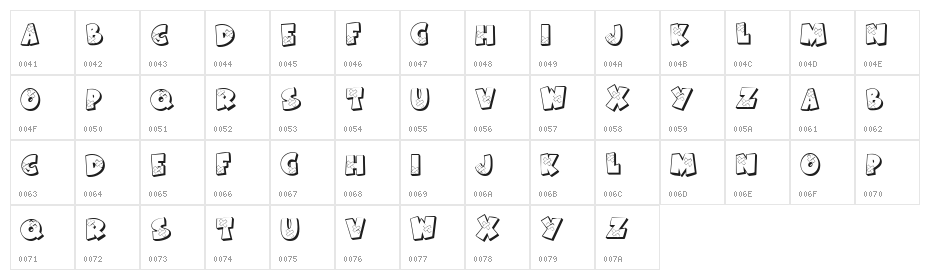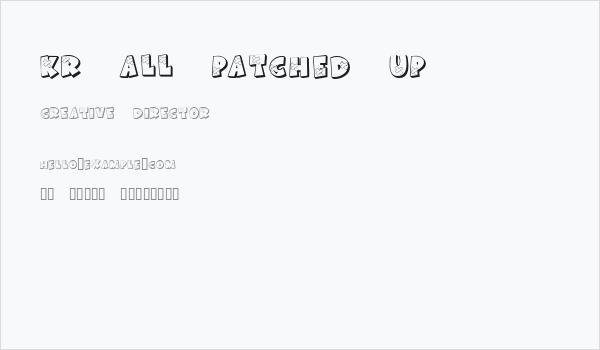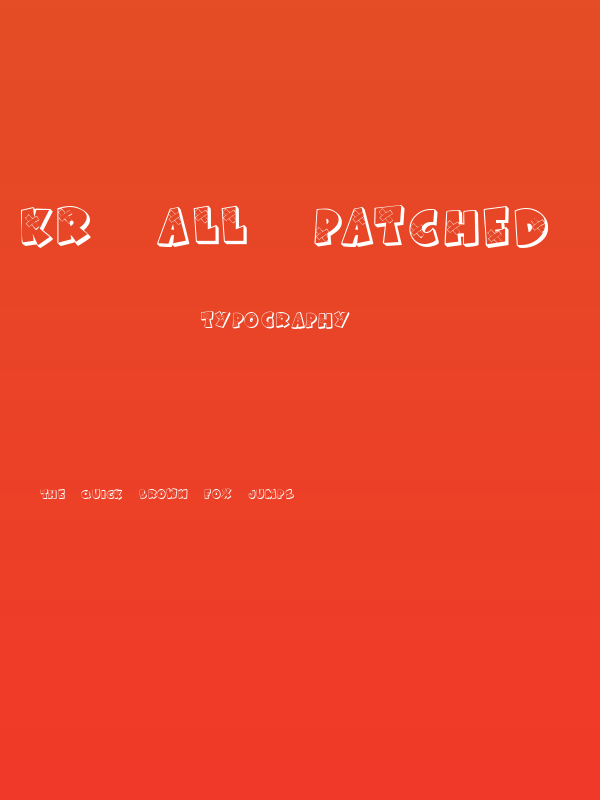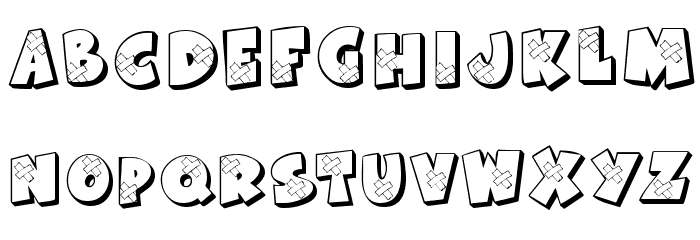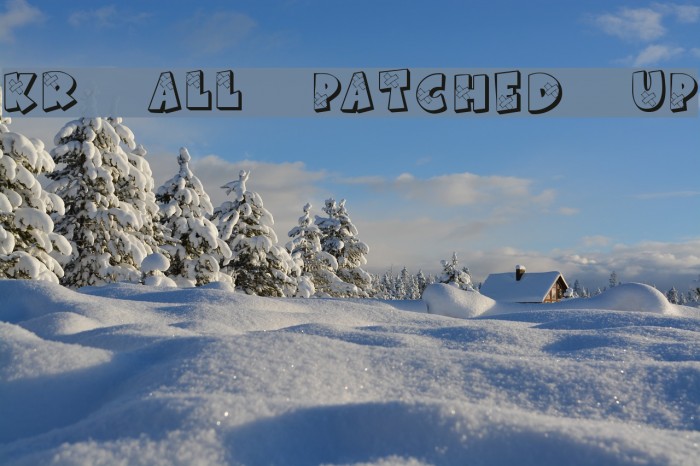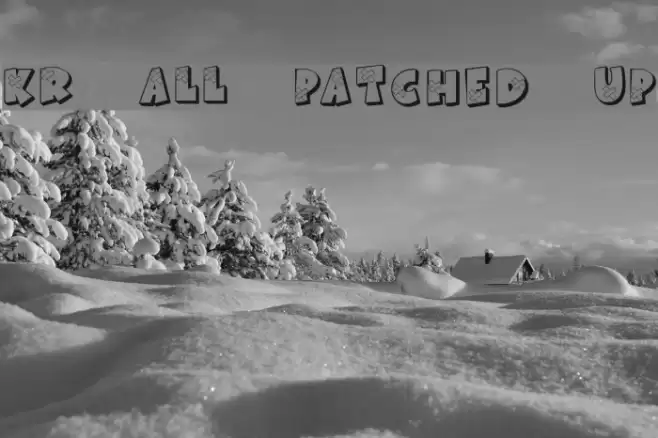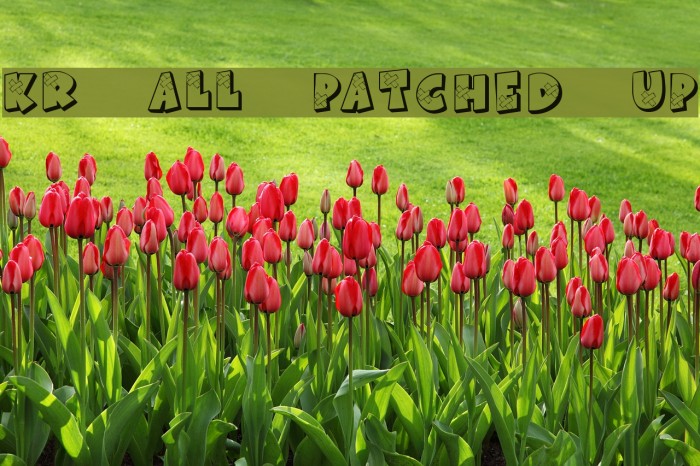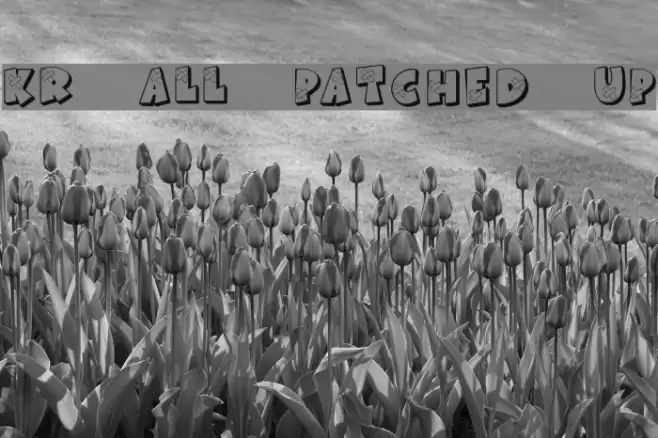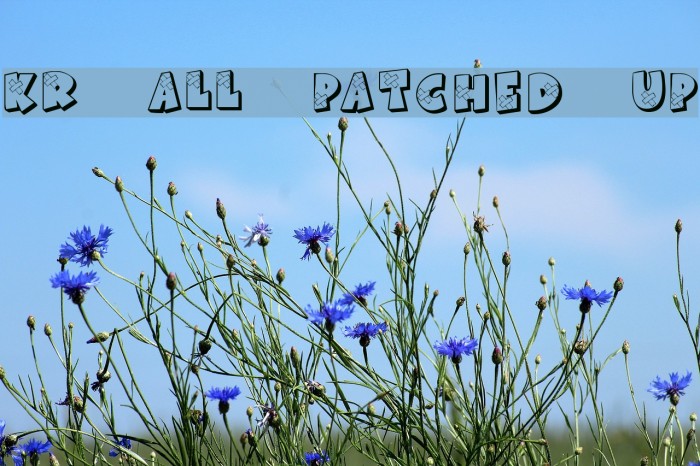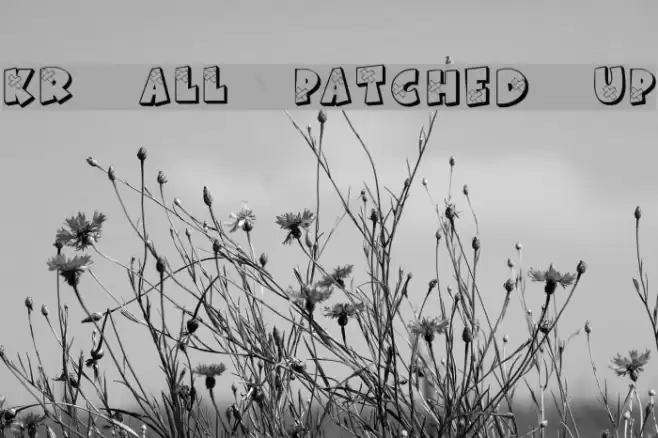
KR All Patched Up Font
KR All Patched Up Description
This playful and whimsical font features bold, blocky letters with a unique patched-up design. Each character is adorned with bandage-like patches, giving it a quirky and fun appearance. The letters have a three-dimensional effect with a shadow that adds depth and character. This font is highly decorative, making it ideal for projects that require a touch of humor and creativity. The bold strokes and playful design make it stand out, while the consistent patch motif ties the entire set together, offering a cohesive and engaging visual experience.
| Proposed Projects | Ideal for children's book covers, playful posters, comic strips, and themed party invitations. |